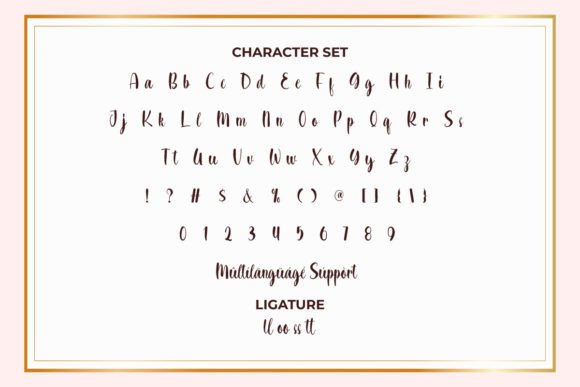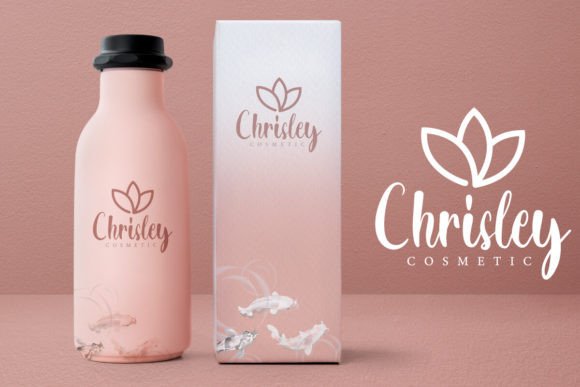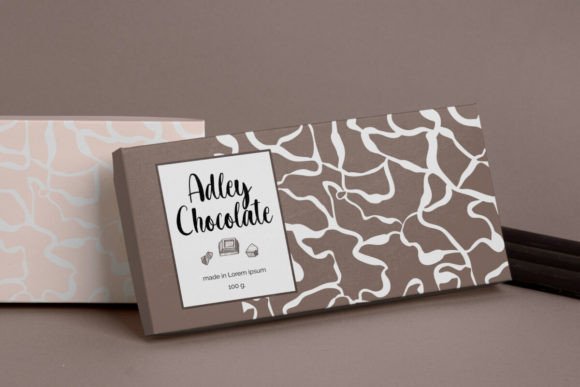
Introduction to Marriage Color Font
Do you remember the first time you stumbled upon a beautiful wedding invitation or a romantic photo shoot? The way the words danced on the page, the colors blended together in harmony, and the overall feel of love and joy in the air? For designers, these moments can be a true inspiration for creative projects. And, for those who want to bring a touch of romance to their designs, there’s a new font that’s about to become a game-changer.
Meet Marriage Color Font, a stunning brush calligraphic script font created by EdricStudio. This beautiful font is inspired by the magic of other people’s weddings and is designed to add a personal touch to any design project. With its thick brush strokes and easy-to-read style, Marriage Color Font is perfect for a wide range of industries, from clothing brands to food products, and even event organizers and flower shops.
Key Features of Marriage Color Font
- High-quality design resource for creative projects, specifically weddings and marriage celebrations.
- Features a transparent background, allowing for easy customization and placement within any design.
- Unique characteristics: A beautifully designed font with intricate details, perfect for adding a touch of elegance to any wedding-related project.
Honest Review: Marriage Color Font
I recently had the chance to work with Marriage Color Font, and I must say it’s a lovely addition to any creative project. The font itself is a beautiful, hand-painted design that’s sure to add a touch of whimsy to any text.
Here are a few things that work well with Marriage Color Font:
- ✨ Beautiful, hand-painted design that’s perfect for creative projects
- ✨ High quality font files with transparent background
- ⚠️ Limited font styles and weights, which may not be suitable for all projects
- ⚠️ Not ideal for projects that require a large amount of text, as it can be quite busy
Overall, I’m really impressed with Marriage Color Font. It’s a unique and high-quality design resource that’s perfect for adding a touch of personality to your creative projects. Just be mindful of its limitations, and you’ll be sure to get the most out of it.
How to Use Marriage Color Font
The Marriage Color Font is a unique design resource perfect for creative projects that require a touch of elegance and sophistication. With its high-quality design and transparent background, it’s an ideal choice for various applications.
To get the most out of the Marriage Color Font, use it in combination with other design elements, such as shapes and icons. You can also experiment with different font sizes, colors, and styles to create unique and eye-catching designs.
The Marriage Color Font is perfect for various use cases, including wedding invitations, event planning, and romantic gift tags. You can also use it in social media graphics, blog posts, and other creative projects.